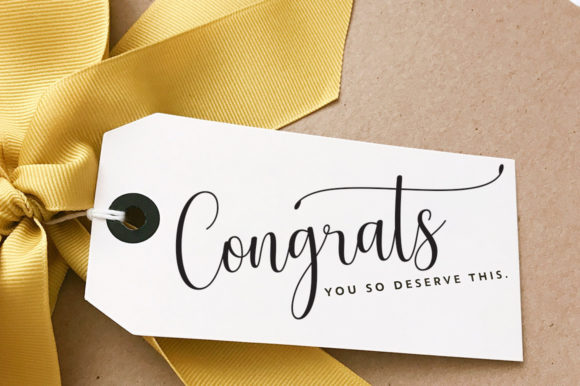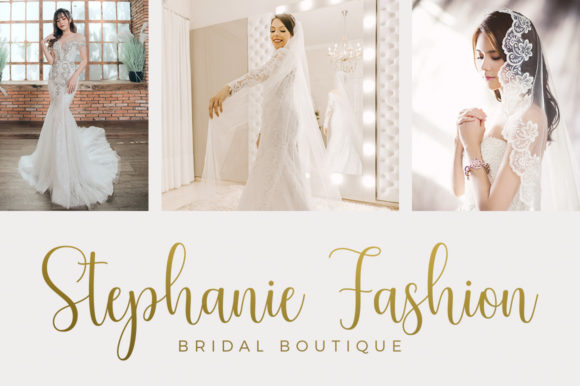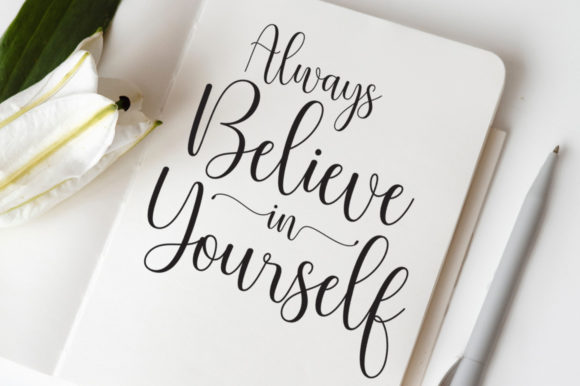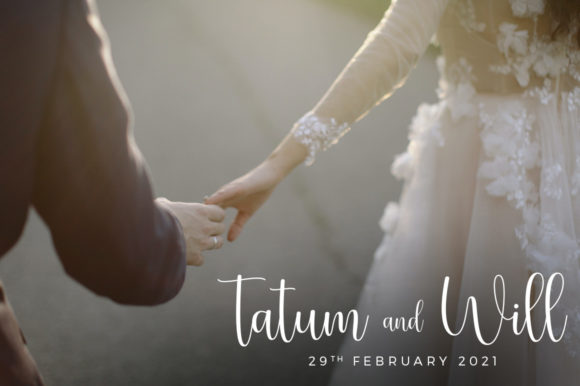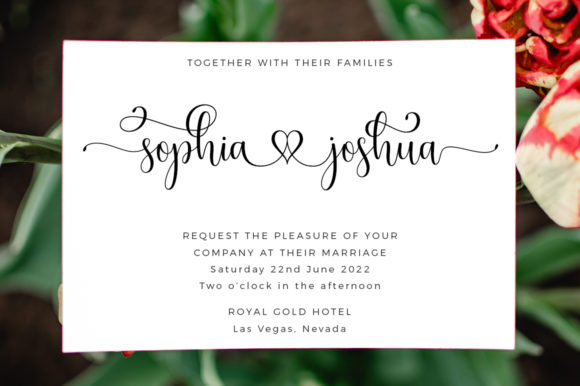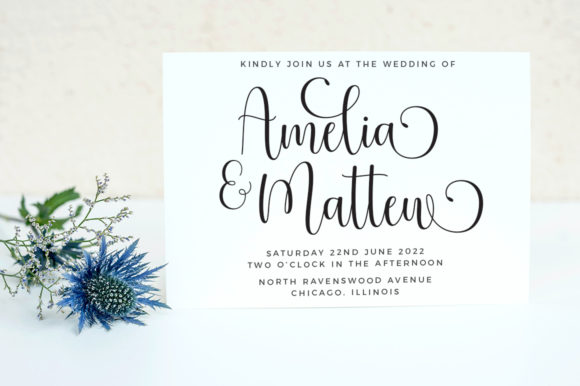
The Fabulous Font: Elevate Your Designs with Luxury and Elegance
I’ll never forget the moment I stumbled upon the Fabulous font. I was working on a luxury branding project for a high-end jewelry client, and I was struggling to find the perfect font that exuded elegance and sophistication. The design brief required a font that would add a touch of glamour to the brand’s logo, and I was determined to find it. That’s when I discovered Fabulous – a beautiful handwritten font that instantly caught my attention.
As I explored the font, I was blown away by its unique feel and stunning impact. The Fabulous font is a game-changer for any design project that requires a touch of luxury and sophistication. In this article, I’ll share my experience with the Fabulous font, its features, and how to make the most of it in your designs.
An Honest Review of Fabulous Font
What I Love About Fabulous Font
- ✨ Unique and elegant design: Fabulous has a distinct handwritten feel that sets it apart from other fonts.
- 💫 Luxury spark: Fabulous adds a touch of glamour and sophistication to any design project.
- 🎨 Versatile: The font can be used for a variety of design projects, from logos and branding to invitations and stationery.
While Fabulous is an amazing font, there are a few things to keep in mind:
- 🤔 Limited use in body text: Due to its elegant and cursive nature, Fabulous may not be the best choice for body text. It’s better suited for headlines, titles, and short paragraphs.
The Designer Inspiration Behind Fabulous Font
The Fabulous font was designed with the intention of creating a luxurious and elegant handwritten font. The designer aimed to create a font that would add a touch of sophistication to any design project. While the exact design process is unknown, it’s clear that the font was crafted with attention to detail and a passion for typography.
Q: Is Fabulous font suitable for body text?
A: While Fabulous font is elegant and beautiful, it’s not recommended for body text. It’s better suited for headlines, titles, and short paragraphs.